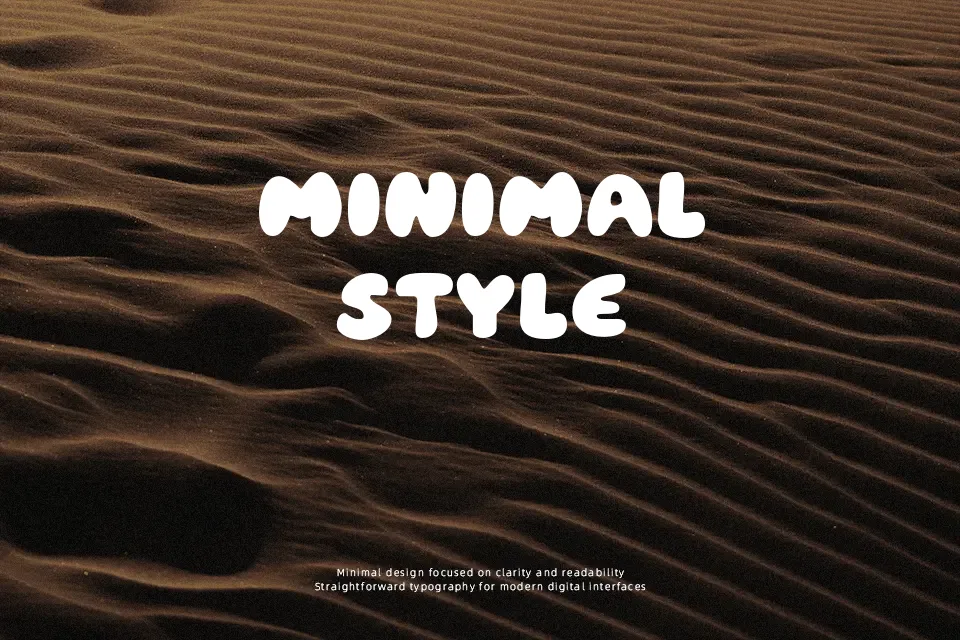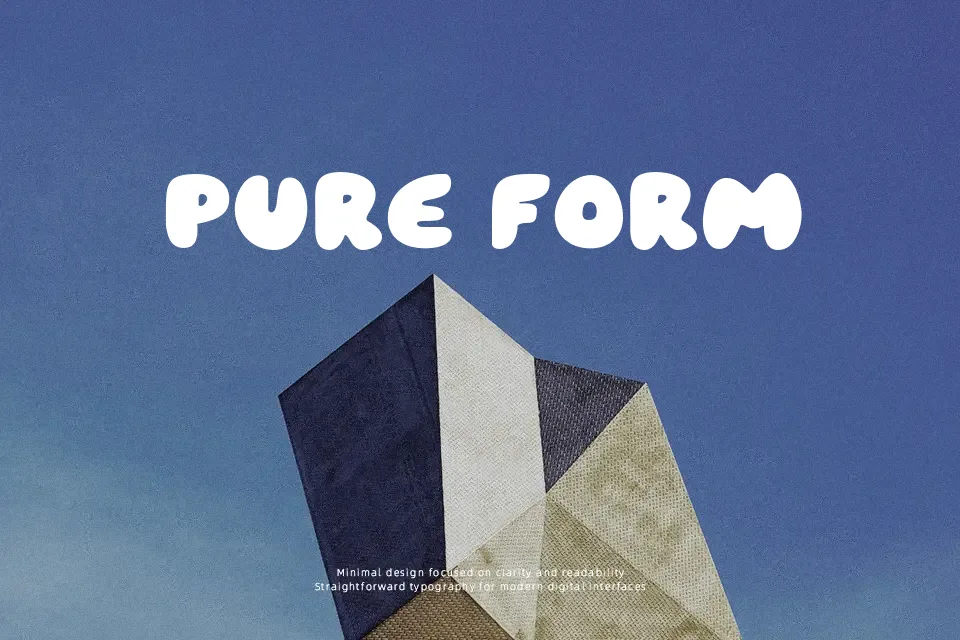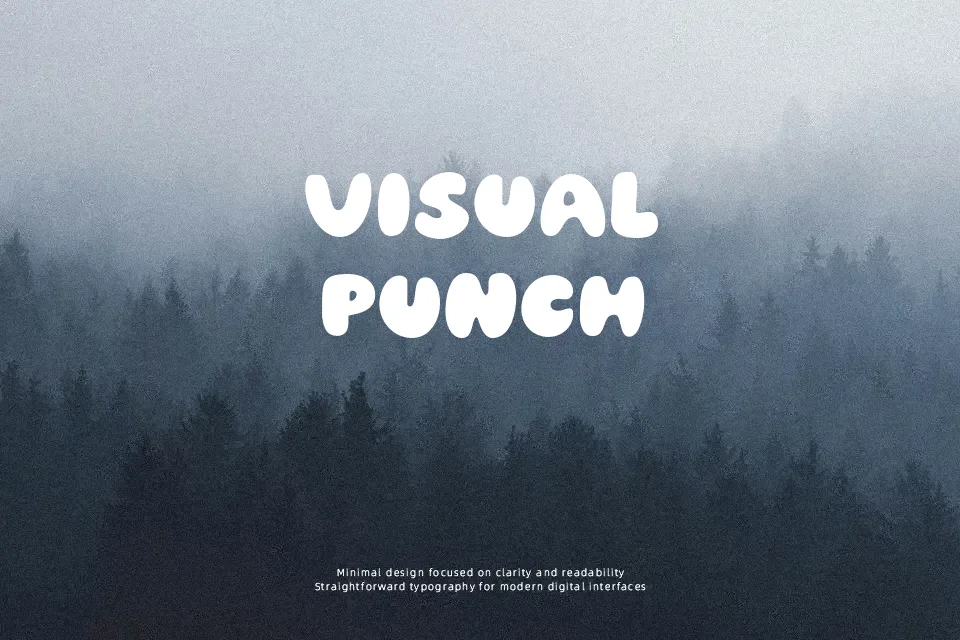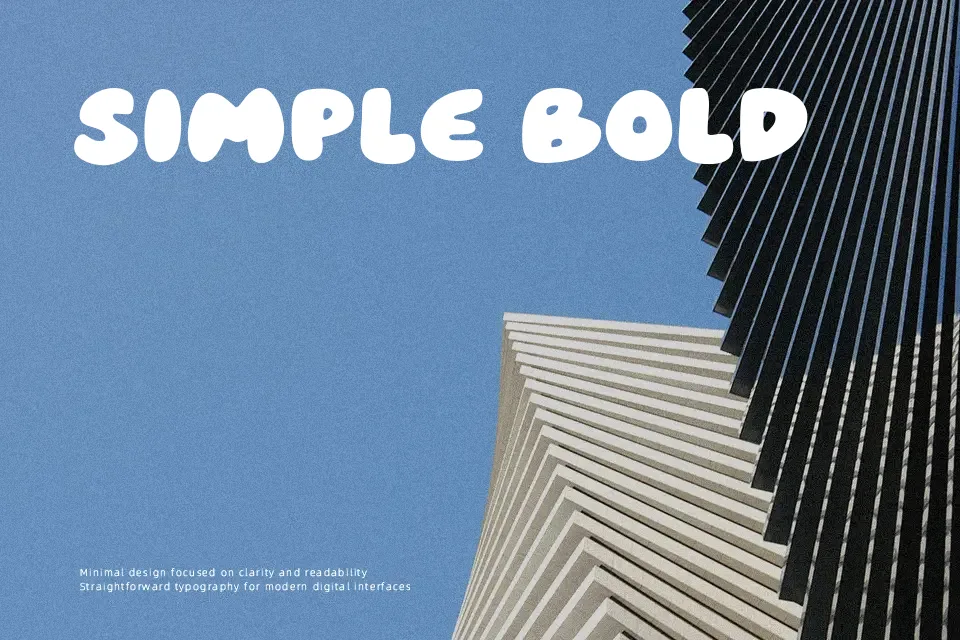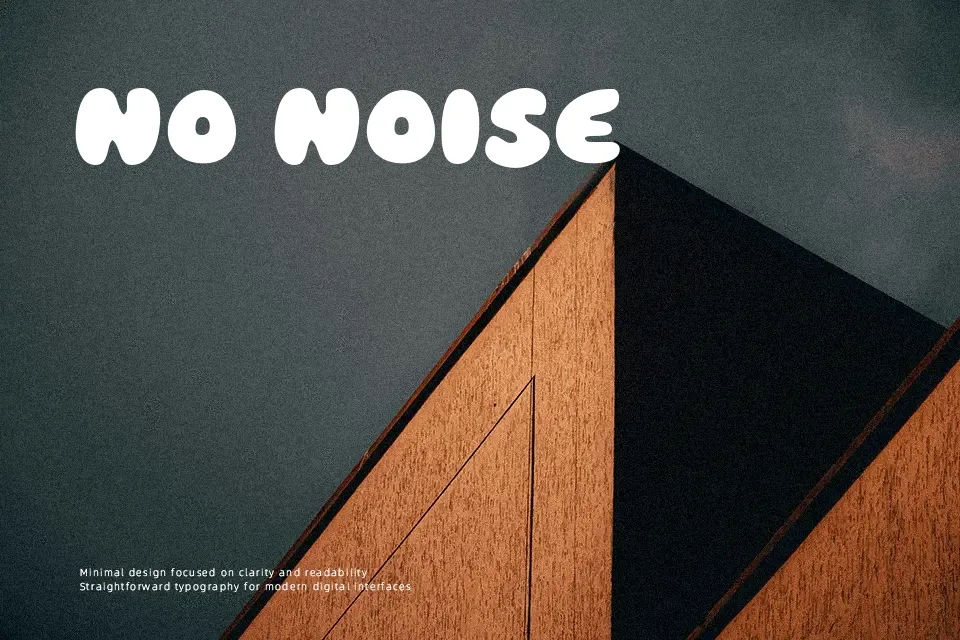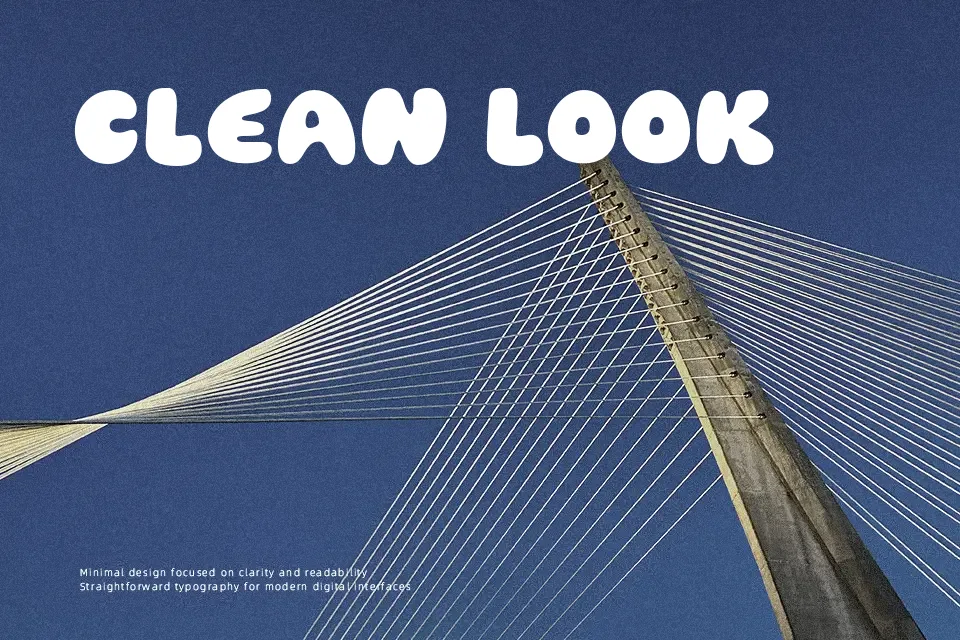
Unlucky Man Font
Designed by Origin Type
Unlucky Man Font presents an expressive cartoon display aesthetic characterized by plump, rounded strokes and low visual contrast. Characterized by playful proportions and tight spacing, the bouncy letterforms deliver high visual impact in creative settings such as toy packaging, mobile gaming banners, and comic covers. While the thick weight ensures excellent readability at prominent display sizes, the bulbous anatomy significantly reduces comfort in extended body paragraphs. Dense typographic layouts may suffer from clumping when scaled down, making this design best reserved for short headlines.
Best For: toy packaging, gaming titles, comic book covers, children’s poster headlines
Not Ideal For: continuous reading, corporate reports, small interface labels, dense editorial layouts